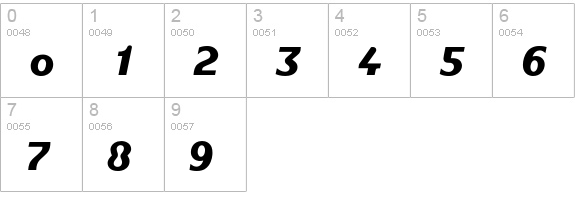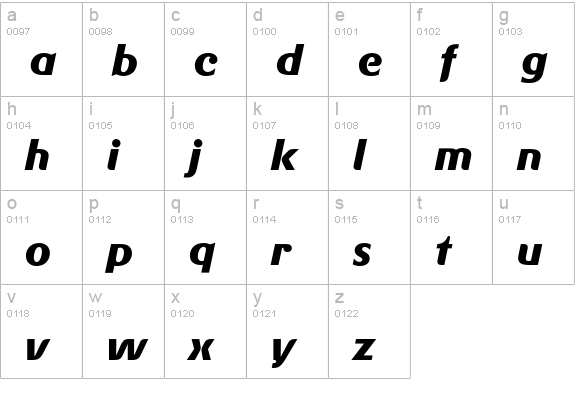
Gerstner BQ Bold Italic Font Details
Gerstner BQ Bold Italic is a strong, high-contrast, italic variant in the Gerstner typeface family \xE2\x80\x94 well suited to headlines, attention-grabbing titles, and strong calls-to-action.
The Gerstner BQ Bold Italic font is a striking and dynamic typeface that exudes confidence and sophistication. Its bold weight and italic style make it perfect for making a statement in headlines, logos, and other prominent design elements. The sharp, angular letterforms convey a sense of modernity and strength, while the slight slant adds a touch of elegance and flair. This versatile font is ideal for a wide range of design projects, from editorial layouts to branding and advertising materials. Its bold presence commands attention and ensures that your message is clearly communicated to your audience. Whether you're looking to create a bold and impactful design or add a touch of drama to your project, the Gerstner BQ Bold Italic font is sure to make a lasting impression. Best of all, this impressive font is available for free download at FontsMarket.com. Now you can elevate your designs with the Gerstner BQ Bold Italic font without breaking the bank. Don't miss out on this fantastic opportunity to enhance your creative projects with this stylish and powerful typeface. Download it today and see the difference it can make in your designs!